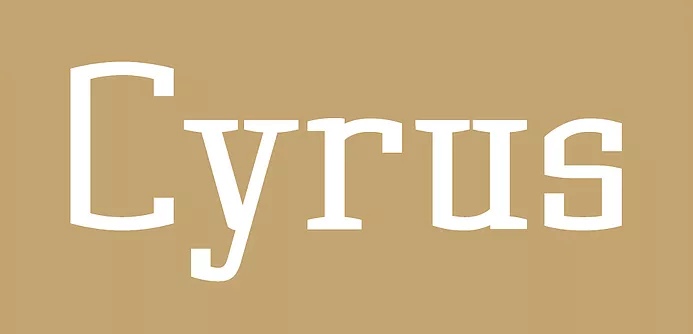
Cyrus Font
Cyrus Font is perfect for ancient history museums, archaeological publications, historical documentaries, cultural heritage branding, classical architecture projects, academic institutions, historical fiction book covers, ancient civilization exhibitions, educational materials, and antiquarian bookstore signage.
What makes Cyrus Font so exciting is its extraordinary ability to bridge the gap between ancient wisdom and modern communication through letterforms that echo the grandeur of classical civilizations. This distinguished typeface draws inspiration from the golden age of empires and scholarly traditions, featuring characters that seem carved from ancient stone tablets yet remain perfectly suited for contemporary applications. The font's timeless design elements perfectly embody themes of knowledge, authority, and historical significance, making it an indispensable choice for projects that seek to convey intellectual depth and cultural heritage.
Cyrus Font comes in multiple font families including Regular, Bold, Light, Italic, Bold Italic, Condensed, Extended, and Ancient variations. Each family member maintains the core classical characteristics while offering different authority levels and stylistic approaches to suit various scholarly design requirements.
The Cyrus Font Free Download offers designers an incredible opportunity to incorporate authentic historical gravitas into modern design projects. This remarkable typeface distinguishes itself through its unique ability to communicate themes of wisdom, tradition, and intellectual authority. Whether you're creating educational materials, developing cultural institution branding, or designing historical publication layouts, this font ensures your message carries the weight of centuries of human knowledge and achievement.
The scholarly precision in Cyrus Font makes it particularly suitable for academic institutions, museums, and educational publishers where credibility and intellectual authority are paramount. Its dignified letterforms maintain excellent readability while preserving the classical dignity that appeals to audiences seeking depth, authenticity, and scholarly excellence.
Educational professionals appreciate how Cyrus Font transforms ordinary text into authoritative declarations of knowledge and cultural significance. The typeface's comprehensive character set includes special historical symbols and decorative elements that enhance the overall scholarly atmosphere of any design project.
For creative professionals serving educational institutions, cultural organizations, and historical publications, Cyrus Font provides the perfect foundation for establishing memorable visual identities that capture the enduring power of human knowledge and the timeless appeal of classical learning that continues to inspire and educate generations.